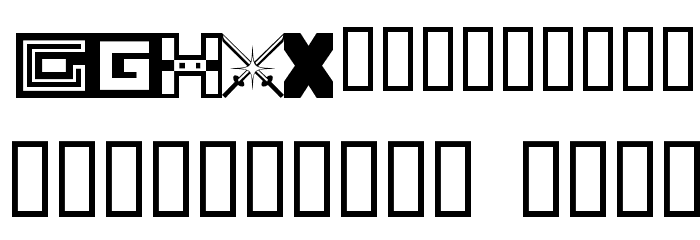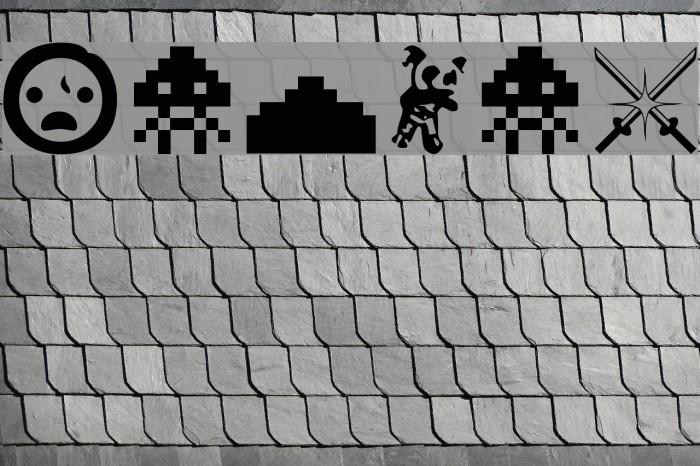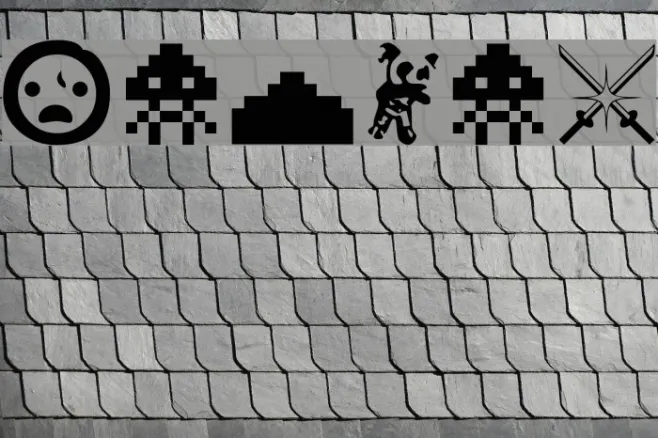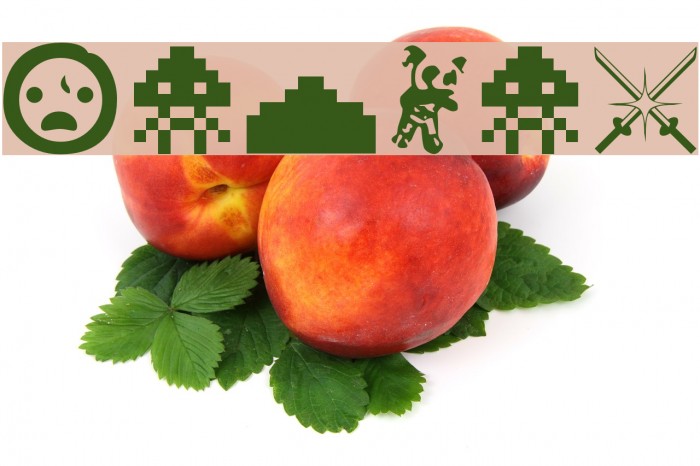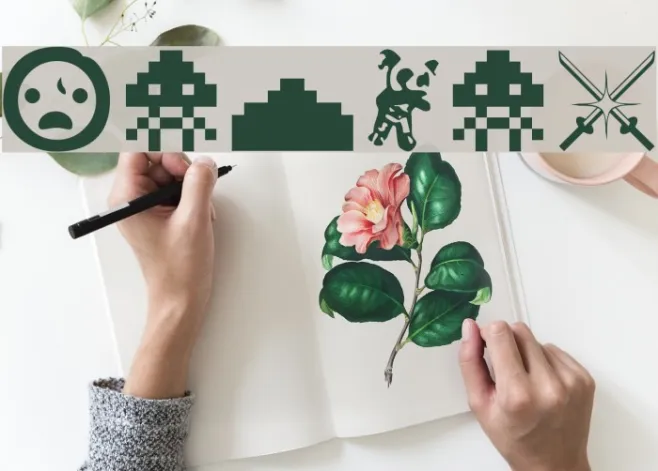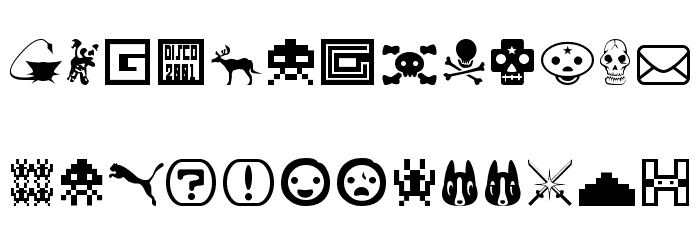
toybox Font
toybox Description
This collection features a playful and eclectic mix of symbols and icons rather than a traditional alphabetic font. The characters include whimsical and quirky designs such as skulls, animals, and abstract shapes. Each symbol is bold and distinct, with a strong emphasis on creativity and fun. The style is reminiscent of retro video games and pop culture, making it ideal for projects that require a unique and eye-catching visual element.
| Use Case | Logos, Posters, Creative Designs |
| Proposed Projects | Ideal for creative projects like game design, posters, and themed party invitations. |